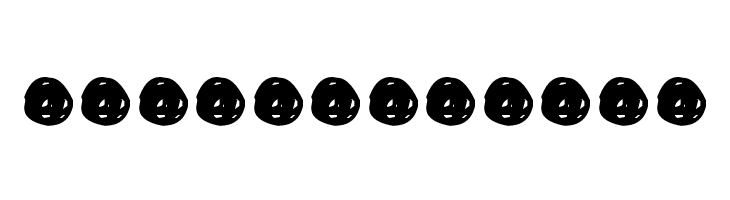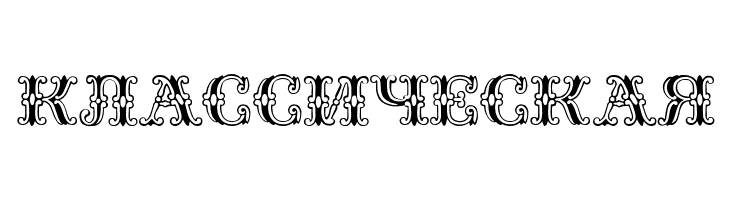
A bold, expressive handwritten font with a rough, textured style.
A whimsical and artistic font with elongated, flowing strokes.
A whimsical and artistic font with irregular, playful letterforms.
A bold, grunge-style font with sharp, angular strokes and splatter textures.
A bold, geometric font with sharp angles and dynamic contrast.
A bold, serif font with a blend of traditional and modern elements.
A sophisticated serif font with sharp serifs and elegant curves.
Ornate icon set with East Asian-inspired symbols and crests.
Ornamental display font with East Asian-inspired motifs and bold, framed glyphs.
A bold, geometric font with a modern and artistic style.
A modern, minimalist font with geometric shapes and dot embellishments.
An ornate, decorative font with intricate detailing and a vintage flair.
A playful handwritten font with tall, narrow characters and whimsical elements.
A bold, dynamic font with sharp, angular edges and a tribal or futuristic flair.
A graceful script font with elegant, flowing strokes.
A graceful, cursive script font with flowing, connected strokes.
A bold, fluid script font with dramatic, calligraphic strokes.